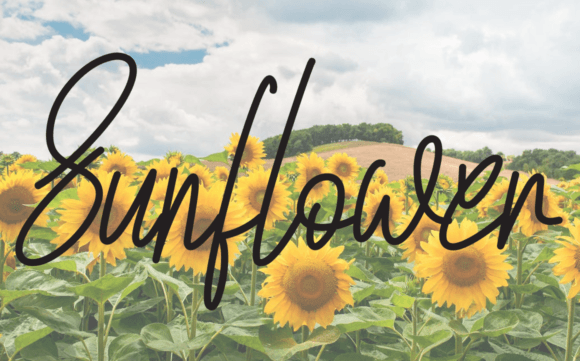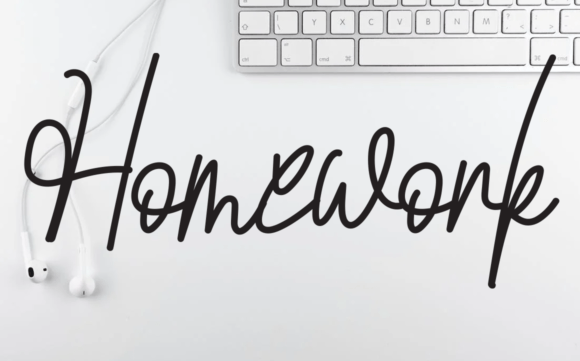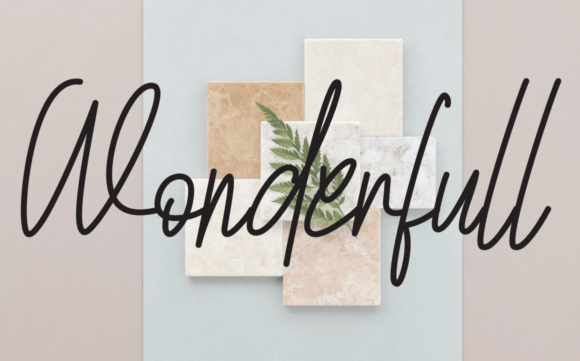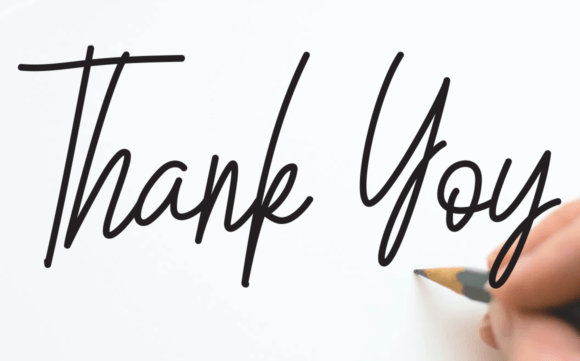
The Elisabeth Font: A Fun and Friendly Companion for All Your Creative Projects
I’ll never forget the time I was working on a greeting card design project, and I just couldn’t seem to find the right font. My client wanted something fun, friendly, and playful, but not too over-the-top. I scoured the internet, tried out dozens of fonts, and still, nothing seemed quite right. That’s when I stumbled upon the Elisabeth font. It was like a breath of fresh air – a beautiful, handwritten font that seemed to capture the perfect balance of whimsy and elegance. In this article, I’ll share my experience with the Elisabeth font, and explore its features, uses, and alternatives.
An Honest Review of Elisabeth Font
So, what do I love about the Elisabeth font? Here are a few things that immediately caught my attention:
- ✨ Unique and playful feel: Elisabeth has a distinctive, hand-crafted feel that’s perfect for projects that need a personal touch.
- ✅ Highly legible: Despite its playful nature, Elisabeth is surprisingly easy to read, even at smaller font sizes.
- 🌈 Versatile: This font seems to work well for a wide range of projects, from digital designs to crafts and presentations.
Of course, no font is perfect, and Elisabeth does have a few small quirks:
- 🤔 Limited formal applications: While Elisabeth is amazing for informal projects, it may not be the best choice for more formal or professional designs.
- ⚠️ Some letter spacing issues: I’ve noticed that the letter spacing can be a bit inconsistent in certain situations, which may require some manual adjustment.
The Story Behind Elisabeth Font
Elisabeth font was designed with the intention of creating a friendly, approachable typeface that would bring a touch of personality to any design project. The designer aimed to craft a font that would be both fun and elegant, with a unique character that would set it apart from more traditional fonts.
| Font Name | Elisabeth Font |
| Author | Garcio |
| What makes Elisabeth font unique? | Elisabeth font has a distinctive, hand-crafted feel that’s perfect for projects that need a personal touch. |
| Is Elisabeth suitable for body text? | While Elisabeth is highly legible, it’s best suited for headings, titles, and short paragraphs. For longer body text, a more traditional font might be a better choice. |